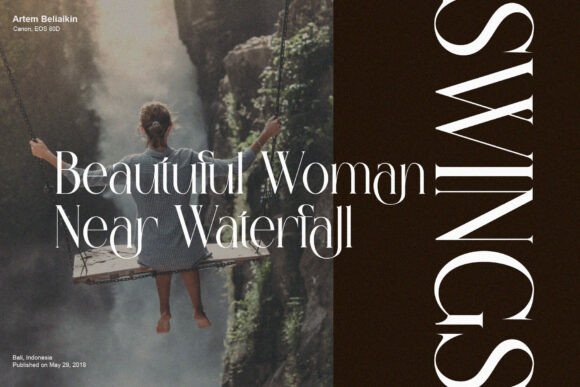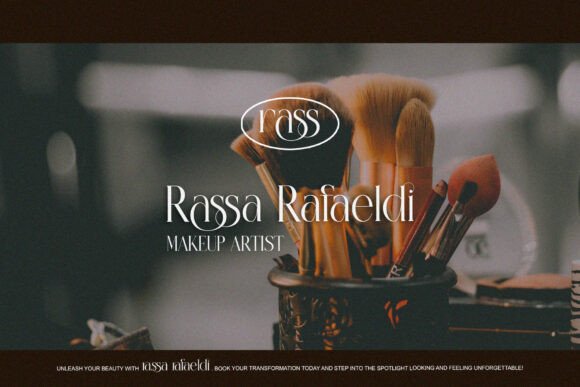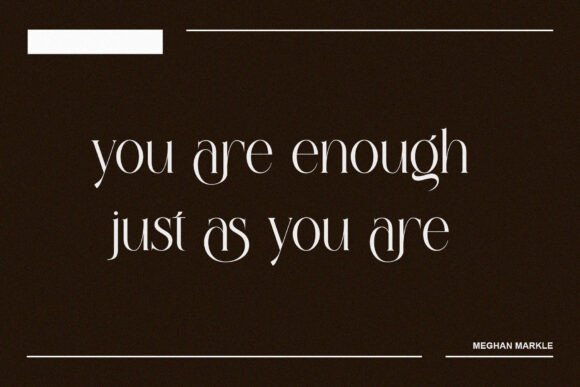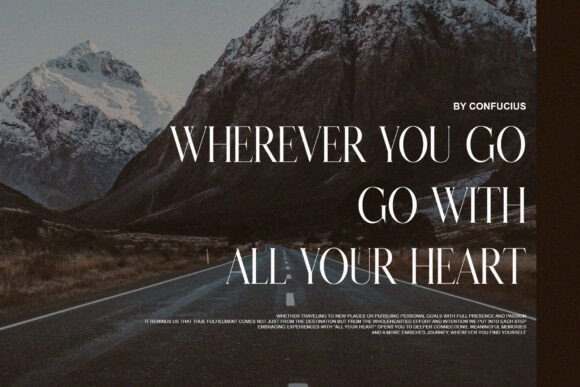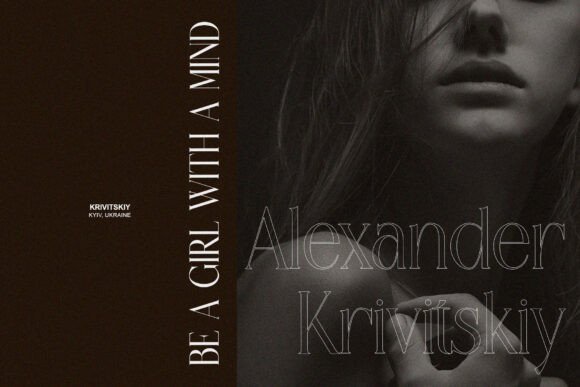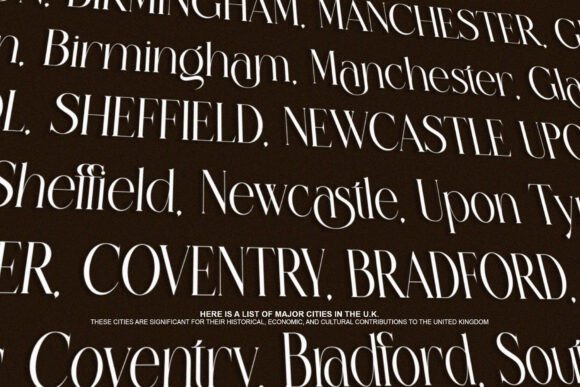
The Elegance of Gitaste Font: A Designer’s Dream Come True
I’ll never forget the moment I stumbled upon the perfect font for a client’s high-end floral branding project. I had been searching for what felt like an eternity, trying out font after font, but nothing seemed quite right. That was until I discovered **Gitaste**. This elegant ligature serif modern font immediately caught my eye with its bold yet refined ligatures, and I knew I had found the one. In this article, I’ll share my love for Gitaste, its features, and how to make the most of it in your designs.
My Honest Review of Gitaste
- 💃 Elegant and Refined: Gitaste’s ligatures are both bold and sophisticated, making it perfect for upscale designs.
- 🌼 Perfect for Florals and Fashion: The font’s charm and elegance make it ideal for projects that require a touch of luxury.
- 📚 Timeless Elegance: Gitaste pairs classic serif styles with a modern twist, ensuring your designs feel both nostalgic and fresh.
- 👀 Every Letter Feels Intentional: The soft and graceful presence of each letter elevates any project it touches.
While Gitaste is an amazing font, there are a few things to keep in mind:
- 🤔 Ligature Limitations: Some ligatures might not work well in all contexts, so it’s essential to experiment and find the right fit for your design.
The Backstory of Gitaste
Gitaste was designed with the intention of capturing the elegance and beauty of fresh blooms. The designer aimed to create a font that would evoke a sense of timeless luxury and sophistication. Inspired by classic serif fonts and modern twists, Gitaste brings a unique touch to any design project.
Q: What makes Gitaste unique?
A: Gitaste’s unique blend of classic serif elegance and modern ligatures makes it stand out. Its refined and sophisticated feel is perfect for upscale designs.
Q: Does Gitaste support OpenType features?
A: Yes, Gitaste supports OpenType features, including ligatures and stylistic alternates. This allows for a high degree of customization and flexibility in your designs.
Q: Is Gitaste suitable for body text?
A: While Gitaste is elegant and refined, it’s more suited for headings and titles. For body text, you might prefer a font with better readability at smaller sizes.